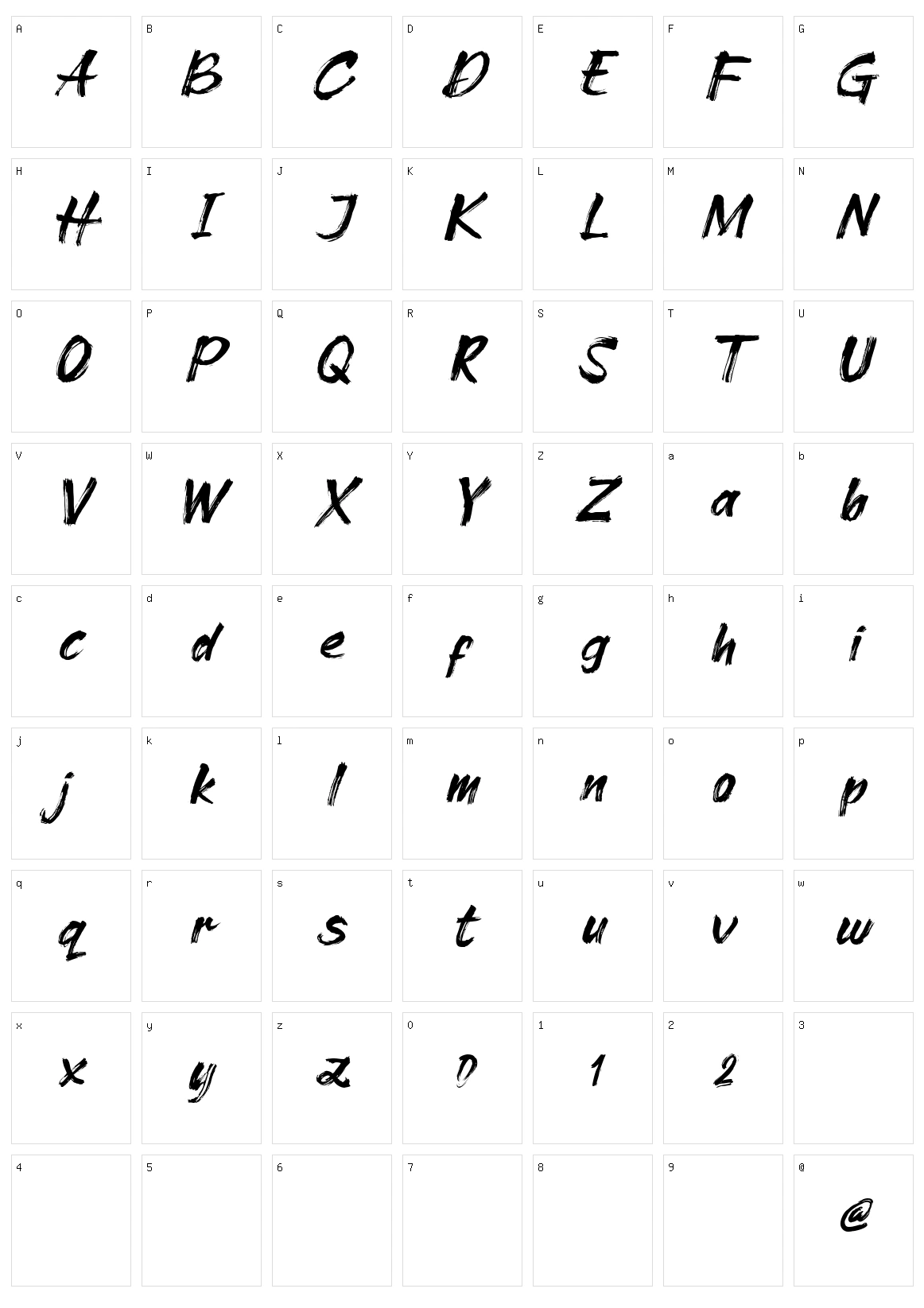
The free font Cleopharta is carefully designed by cove703, showcasing a thoughtful balance of creativity and usability and falls under the Script font style. When you download the ZIP file, it contains only 90.17 KB of font files, making it lightweight and quick to download. Please review the license details below to understand permitted usage and distribution rights. If license information is not available, we recommend using this font for personal projects only or contacting the author directly for commercial usage permissions.